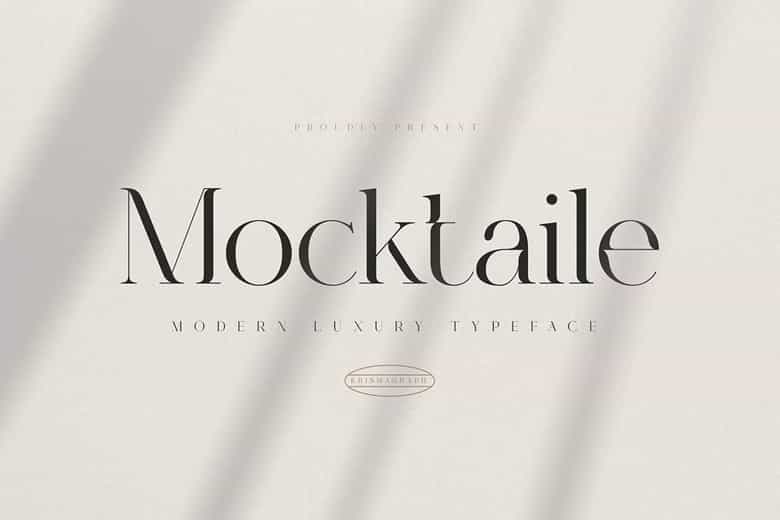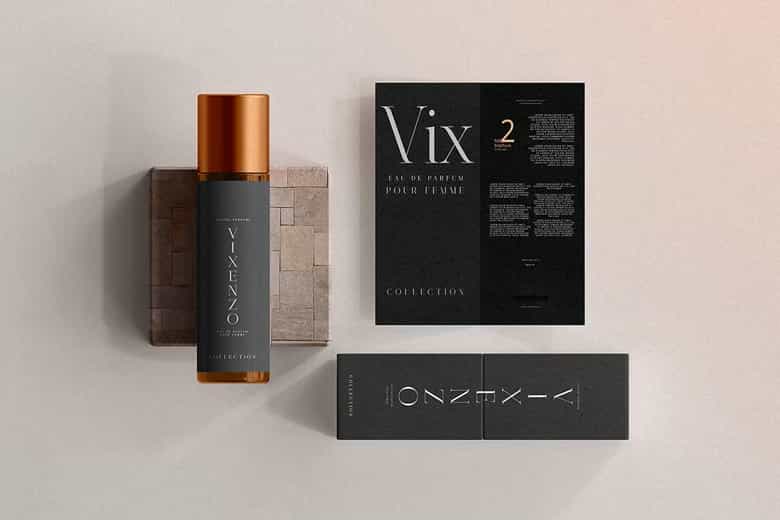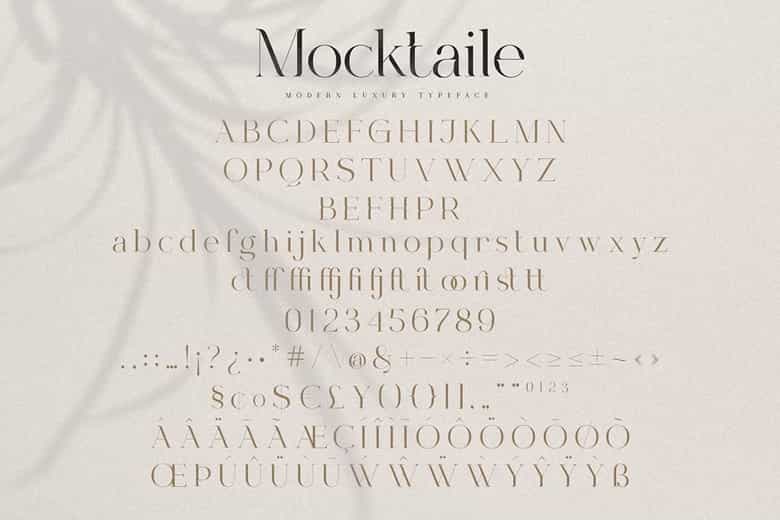
Mocktaile is a contemporary & extravagant serif font. High contrast glyphs combined with soft curves lend itself to both feminine values. Terrific in quote or body copy layout, and will be brand new as to the utilization of the fashion typography, logo design. And, also multilingual support.